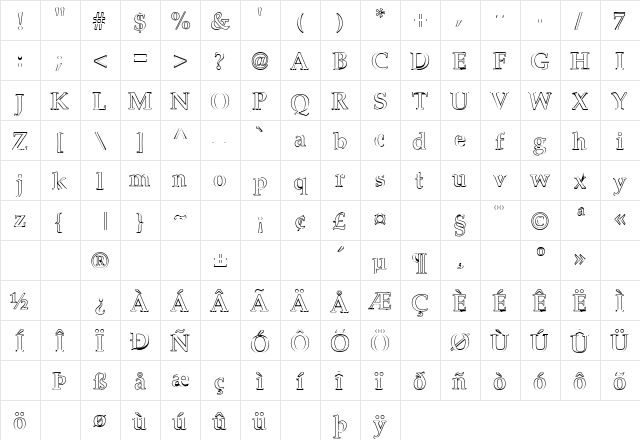
Thosir 12 Regular
Design Context for Thosir 12 Typeface
Thosir 12 takes a measured approach to typography — its balanced proportions and neutral character make it a reliable workhorse for both digital and print work.